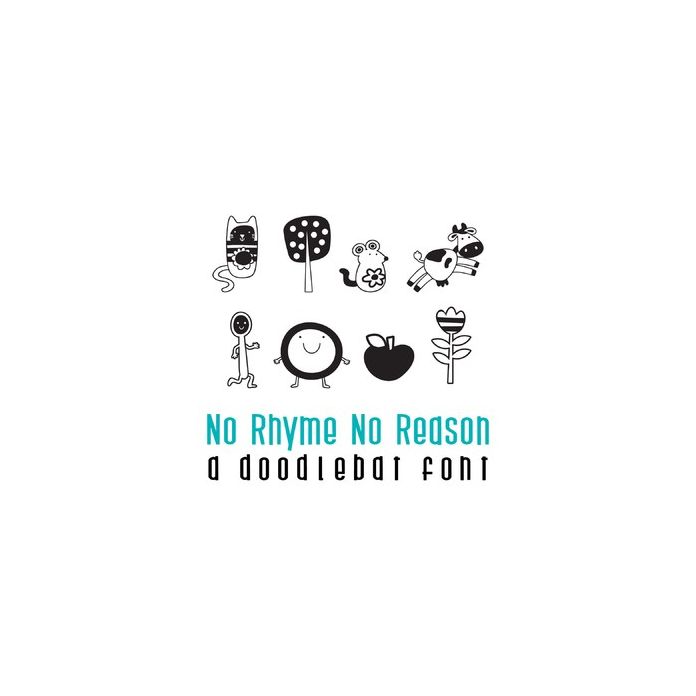
no rhyme or reason doodlebat font
This fun doodlebat font features 26 nursery rhyme images. Perfect for cards, gifts, decor, crafts, scrap book pages, planner stickers and more!